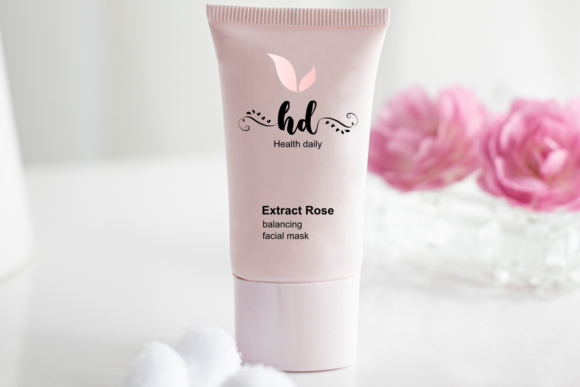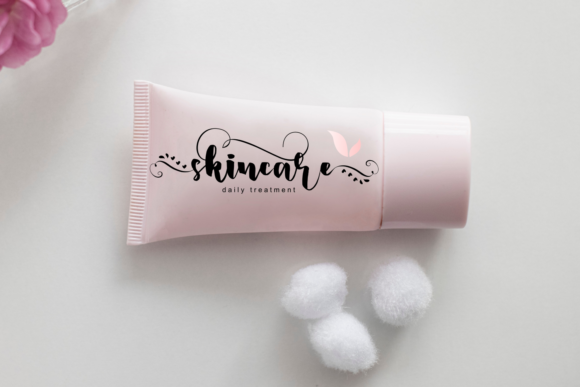
Skincare Font
db-ku.com - Script & Handwritten -- Skincare is a chic, refined script font that emanates sophistication and elegance. Its stylish alternates and ligatures make this font the perfect match for any project.